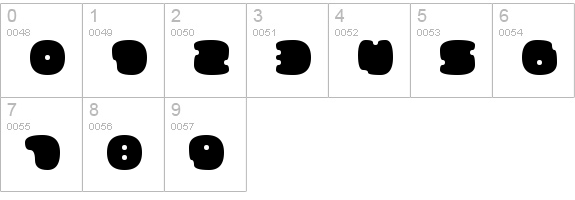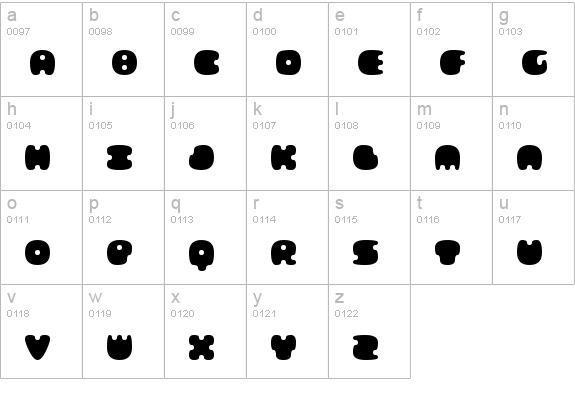
Fats Are Good Font Details
The Fats Are Good font is a bold and contemporary typeface that exudes confidence and strength. With its robust letterforms and thick strokes, this font is perfect for making a bold statement in any design project. The Fats Are Good font is versatile and can be used for a variety of purposes, from headlines to branding to packaging.